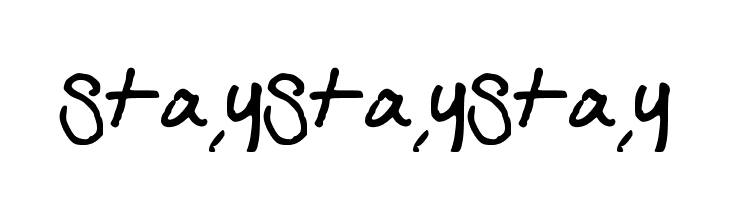
A flowing, elegant script font with smooth, continuous strokes.
A bold, modern sans-serif font with clean lines and high legibility.
A playful and casual handwritten font with irregular strokes.
A bold, geometric font with a futuristic inline style and strong contrast.
A decorative insect-themed dingbat font with detailed bug illustrations.
A bold, dynamic font with slanted, jagged cuts for a sense of speed.
设计师偏爱 Elegant, Noto Sans KR Black, Bookmark Light Italic, Weaselbee beans and SF Piezolectric Inline,因为其造型干净、适用范围广—— 从品牌识别到落地页、海报都能胜任。